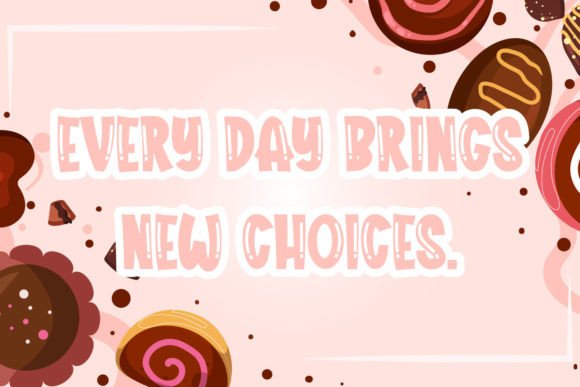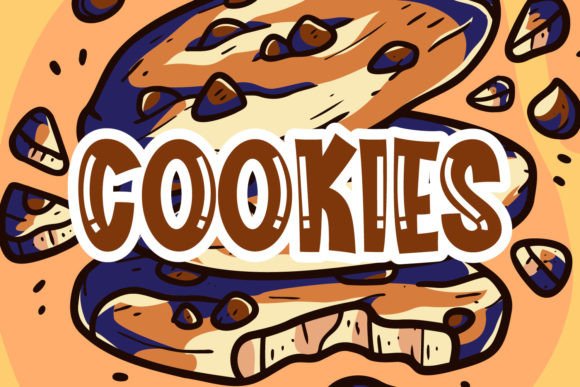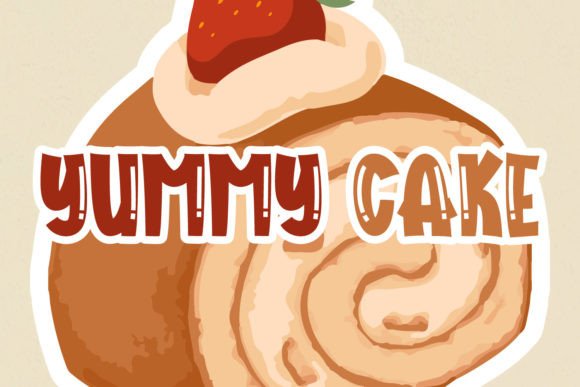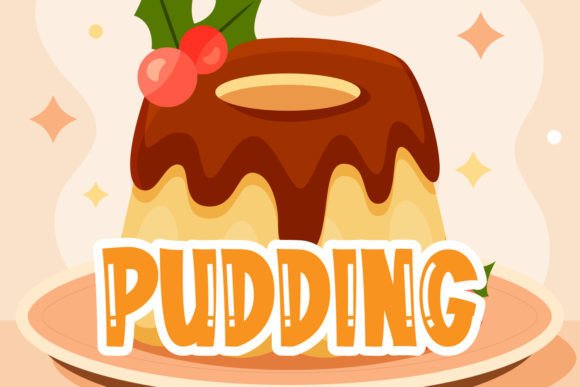
The Sweet Spot: Discovering the Charm of Brownies Font
I’ll never forget the time I was working on a project for a client’s birthday card. I had the design concept nailed, but something was missing – the perfect font. I scoured the internet, tried out a dozen different fonts, but none seemed quite right. That was until I stumbled upon Brownies Font. It was love at first sight! The cute, playful, and retro vibe was exactly what I needed to bring the design to life. In this article, I’ll share my experience with Brownies Font, its features, and how to make the most of it in your designs.
A Personal Review: What I Love About Brownies Font
Brownies Font has quickly become one of my go-to fonts for various projects. Here’s what I love about it:
- ✨ Cute and Playful: Brownies Font has a unique charm that’s perfect for creating eye-catching designs.
- ✅ Retro Vibe: The font’s retro feel adds a touch of nostalgia to any design.
- 💡 Versatile: Brownies Font can be used for a wide range of applications, from greeting cards to headlines and more.
- 👍 Ease of Use: The font is easy to read and works well in both digital and print formats.
While Brownies Font is an excellent choice for many projects, there are a few things to keep in mind:
- 🤔 Limited Formality: Brownies Font is a display font, so it’s best used for headlines or titles rather than body text.
- ⚠️ Legibility at Small Sizes: The font may not be legible at very small sizes, so it’s best used at larger sizes.
A Practical Guide: Using Brownies Font in Your Designs
Brownies Font comes with a range of OpenType features and glyphs that can enhance your designs. Here are a few tips on how to access these features:
The designer of Brownies Font was inspired by the retro diners and desserts of the 1950s. They wanted to create a font that captured the playful and whimsical spirit of this era. The result is a font that’s both nostalgic and modern.
| Font Name | Brownies Font |
| Author | Planetz studio |
| What is Brownies Font? | Brownies Font is a cute, playful, and retro display font. |
| What can I use Brownies Font for? | Brownies Font is perfect for a wide range of applications, including greeting cards, headlines, and more. |
| Is Brownies Font easy to read? | Yes, Brownies Font is easy to read and works well in both digital and print formats. |